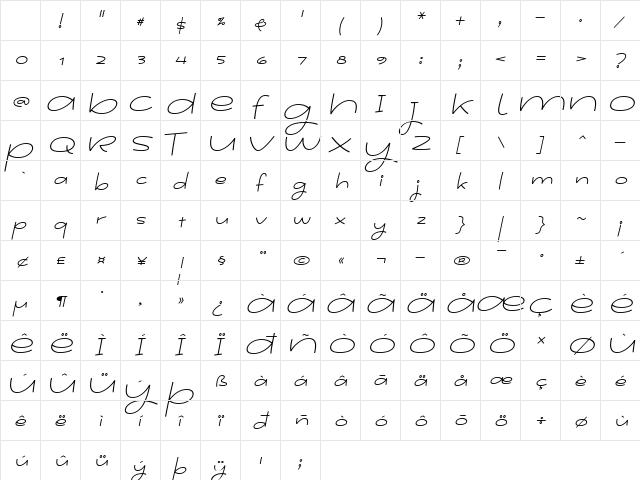
Complete Youthing October Fourteen Italic glyph index. Displaying only characters natively supported by Youthing October Fourteen Italic font.
Youthing October Fourteen is a composed and adaptable typeface that performs quietly and consistently across a wide range of design contexts. The slanted form adds forward momentum and visual energy. Its slender proportions lend an understated elegance to any composition.
Pro Tip: Use Youthing October Fourteen for emphasis, pull quotes, and subheadings where its slanted energy can add rhythm to the layout.